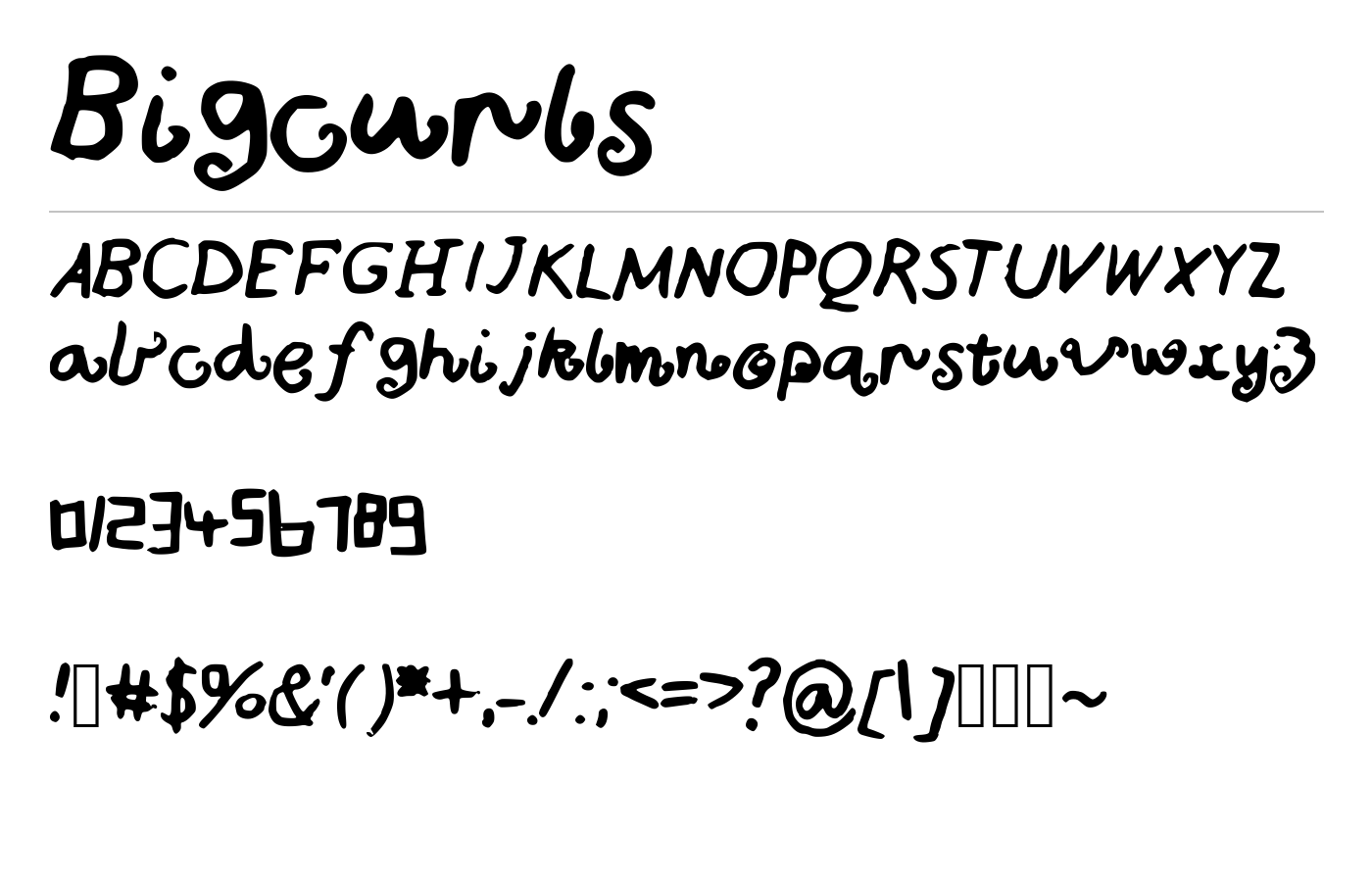
Bigcurls is a playful, handwritten sans serif font with bold, rounded strokes and whimsical curls that give it a charming, informal personality. Its uneven letterforms and quirky details make it perfect for creative projects, casual branding, and eye-catching headlines that want to convey friendliness and fun. This font works well in designs that seek a unique, approachable style without sacrificing legibility.
Bigcurls Font
About Bigcurls Font